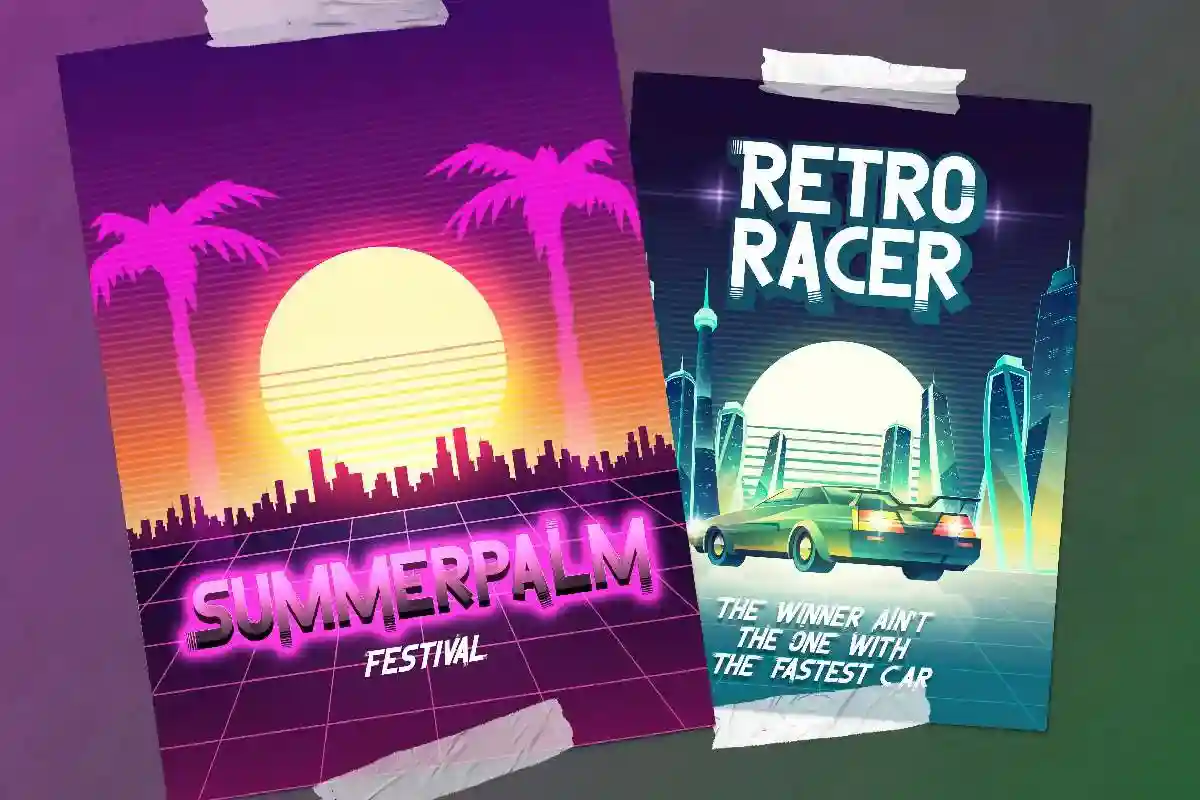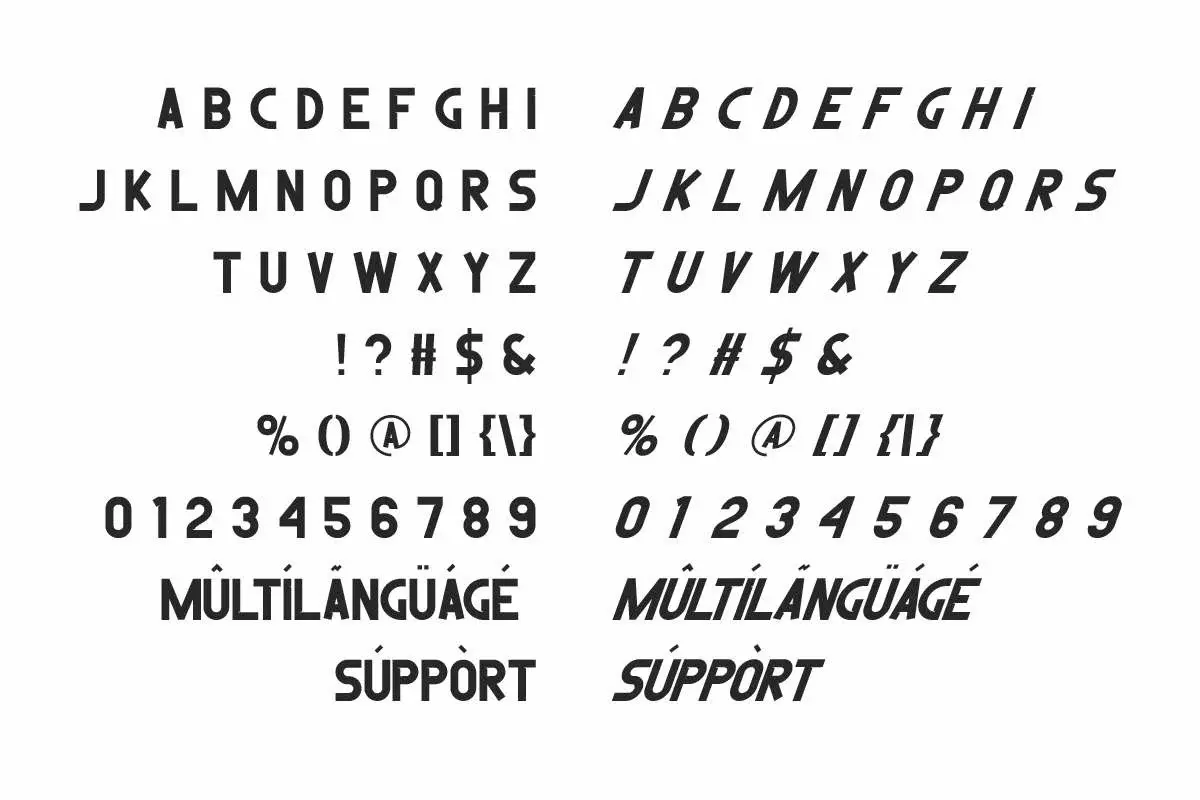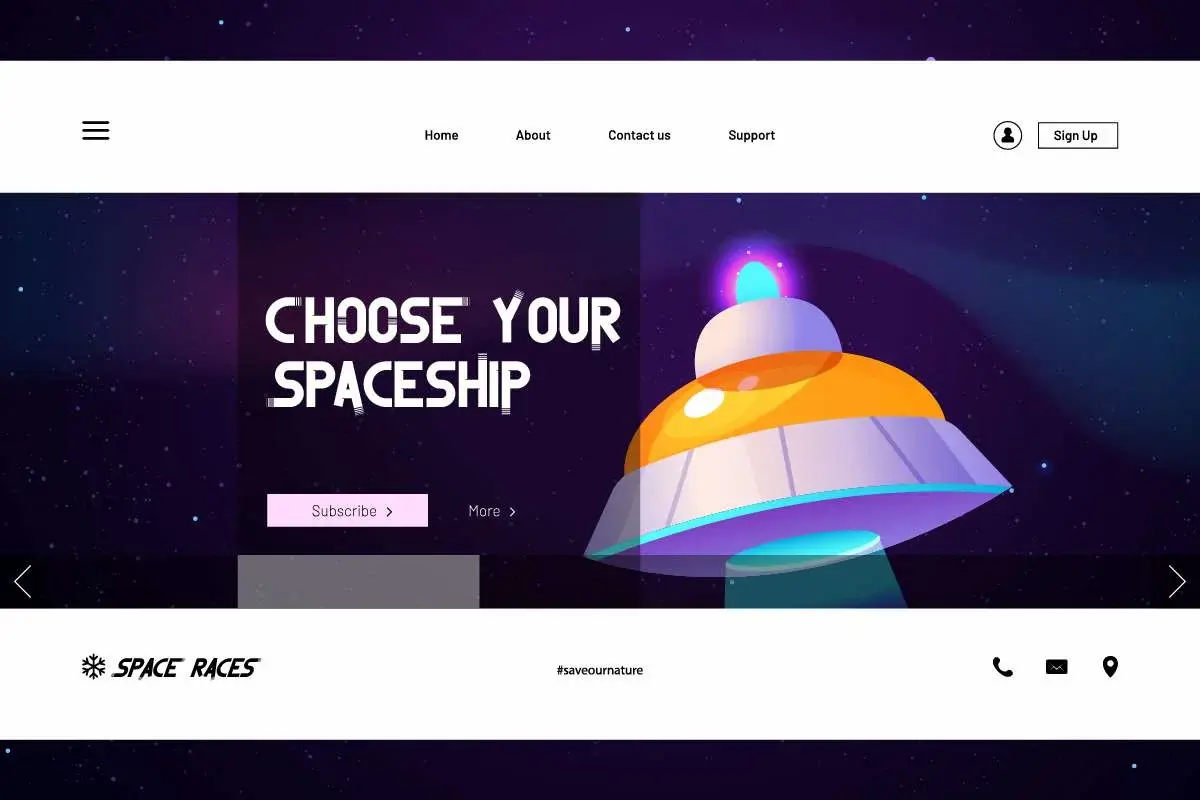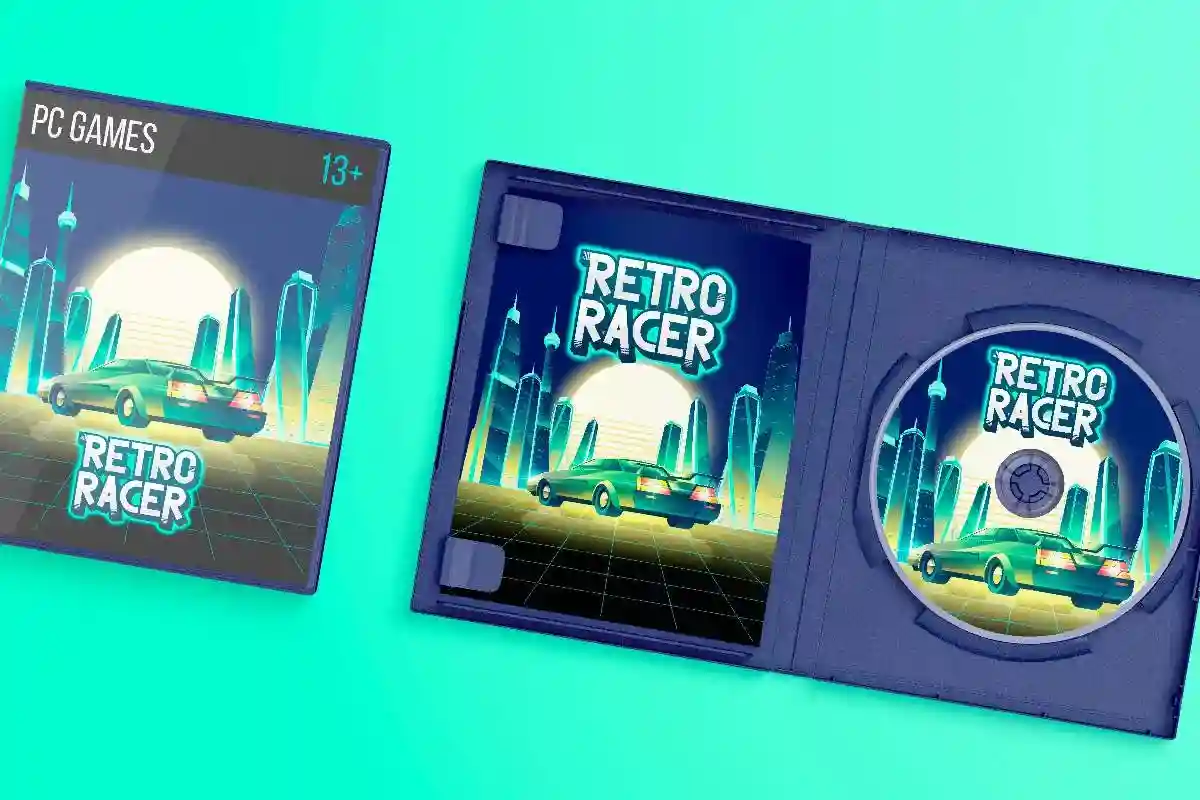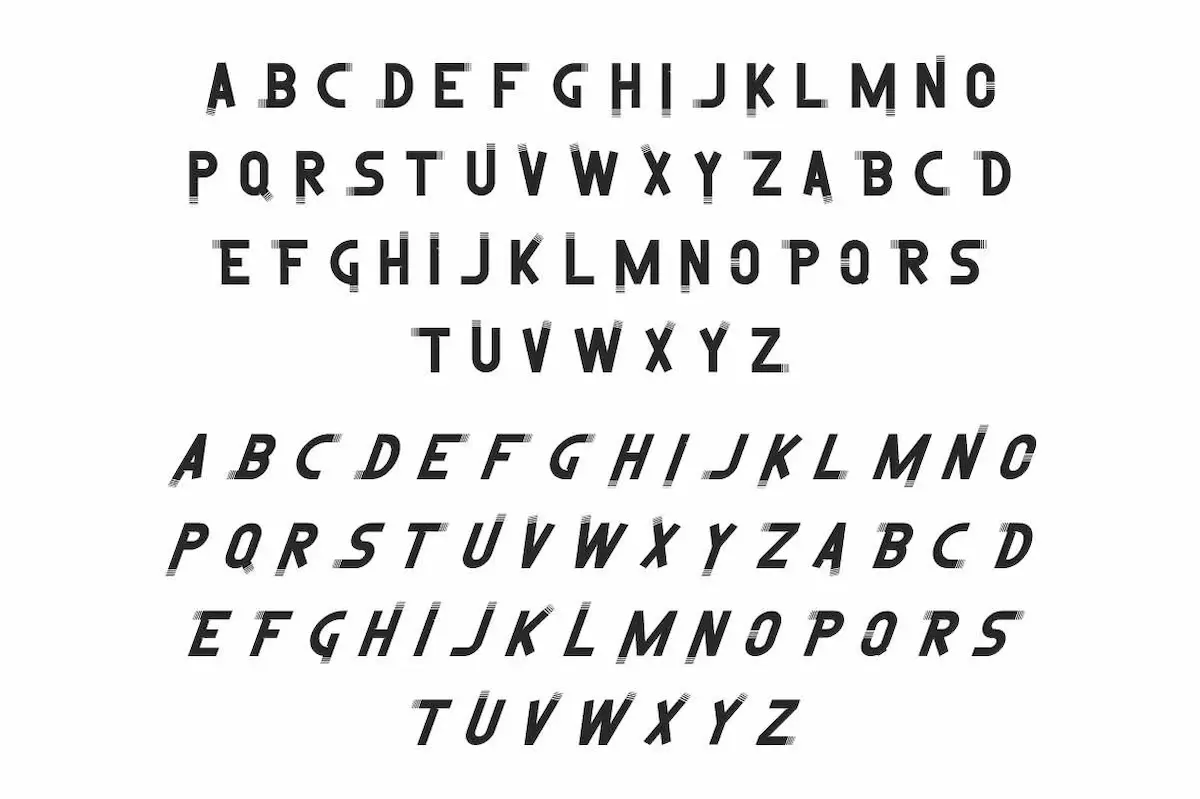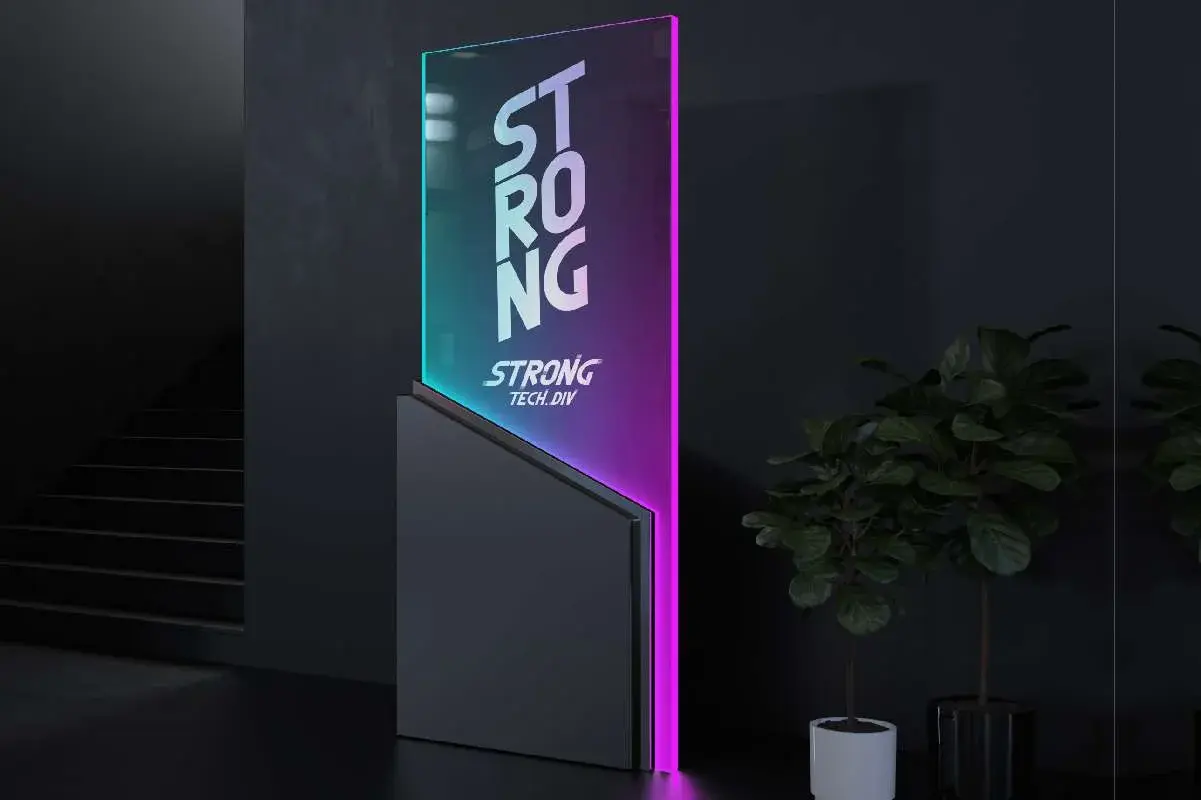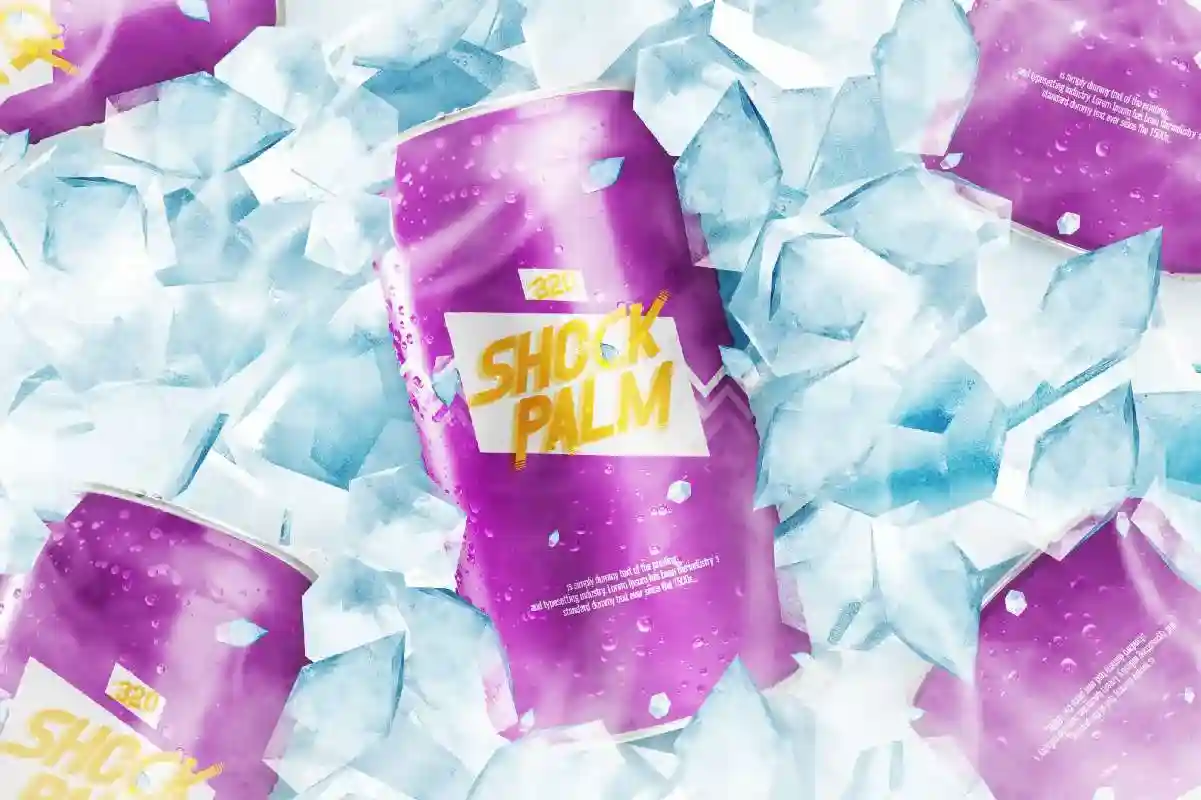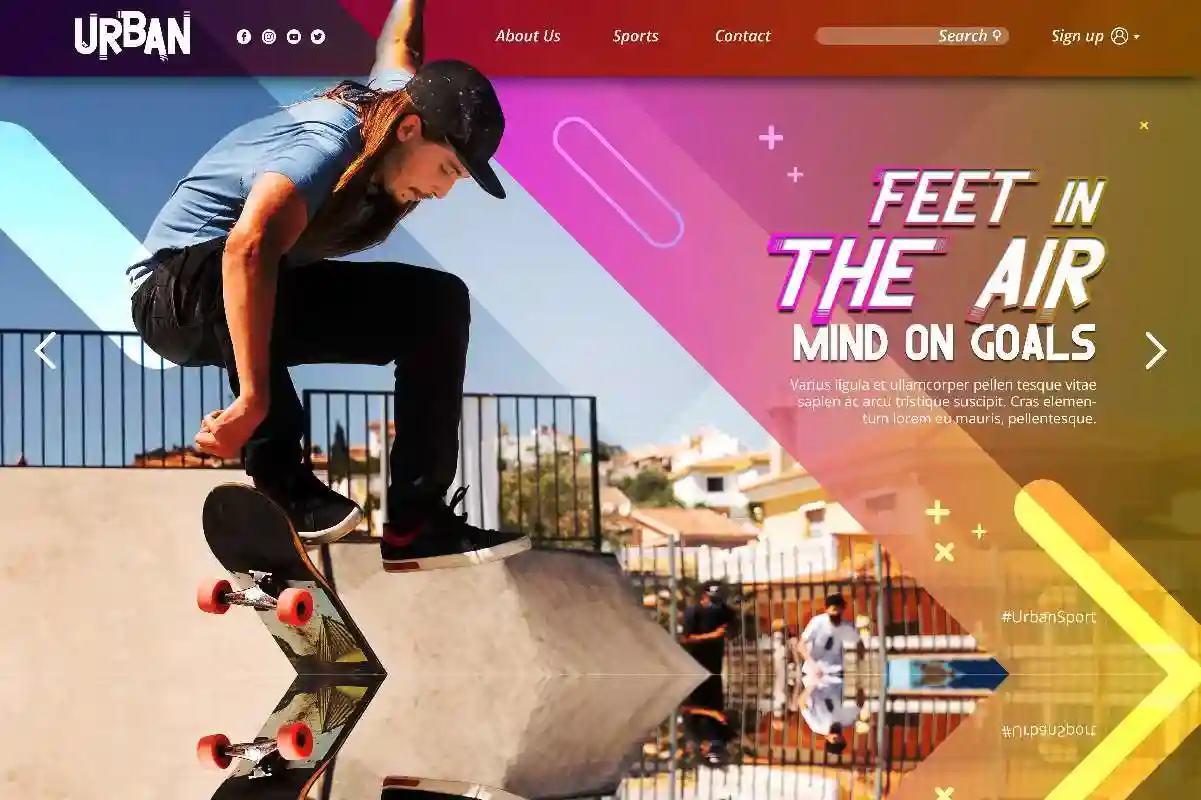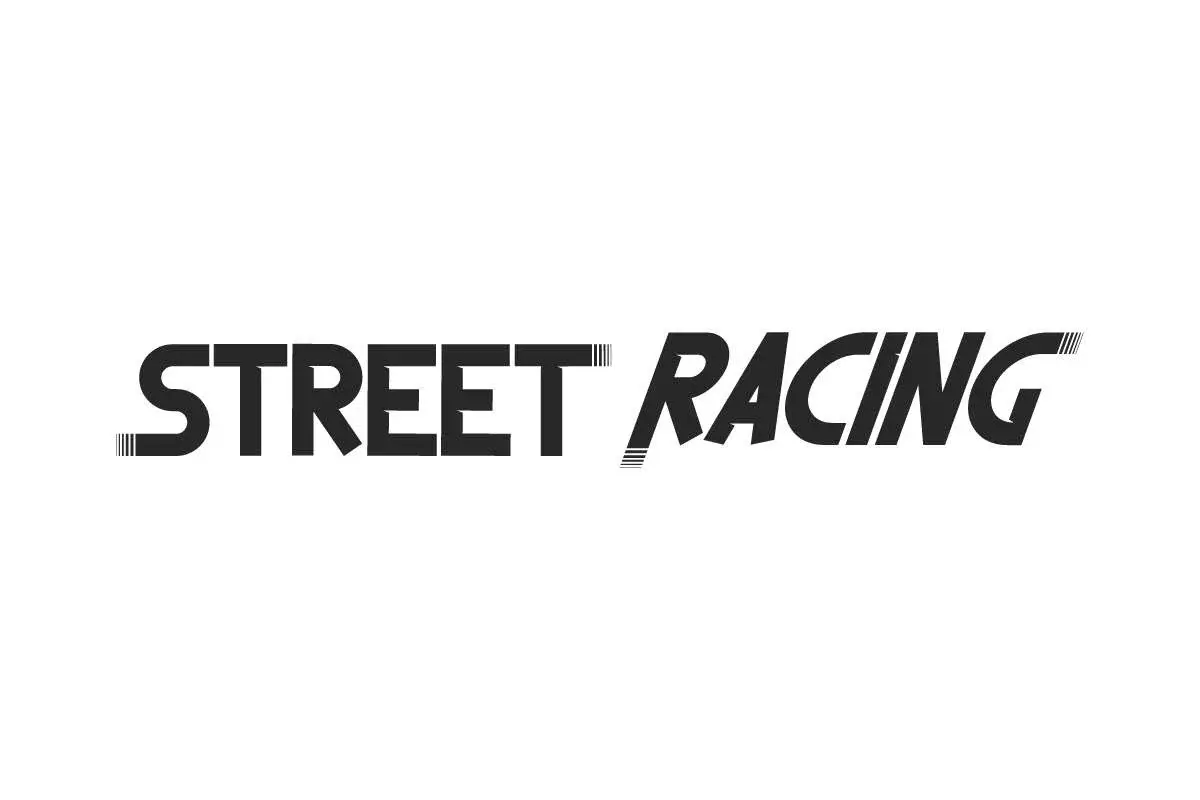
Street Racing Font is a speedy sporty unique display font, created by NihStudio. Use this font for sport tournament, race team, sports, beverage brand, festival music, poster, skateboard design, space project, website, etc.
Street Racing Font is a speedy techno display font with sporty style. This font is packed with two cool fonts, Regular and Italic. It will be suitable for many industries such as, artist, automotive, energy drink, event/festival, game, movie, music, race, space, sporty stuff, tech, and more!
Street Racing Font will be great for 3D mockup, brand logo, game card, header, packaging design, poster, signage, stationery, website, etc. This font also has alternate characters that stand out and will refresh any design you create!
Street Racing Font comes with a full set of Uppercase and Lowercase Basic Characters, Number, Punctuation, Symbol, Alternate, and also supports multilingual characters. Ready to use both on Windows machine or Mac with simple installations. It’s tested to work well in the Adobe Apps (Illustrator, Adobe InDesign, Adobe Photoshop) CorelDraw, and others. PUA Encode Characters means you can access all the glyphs and other additional characters easily.